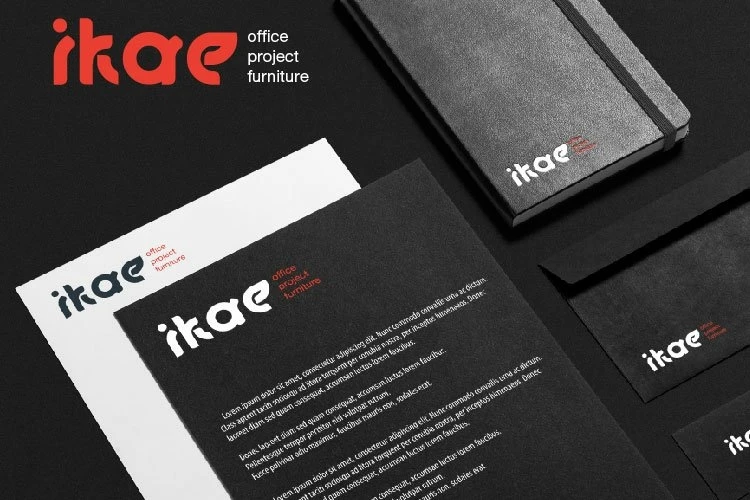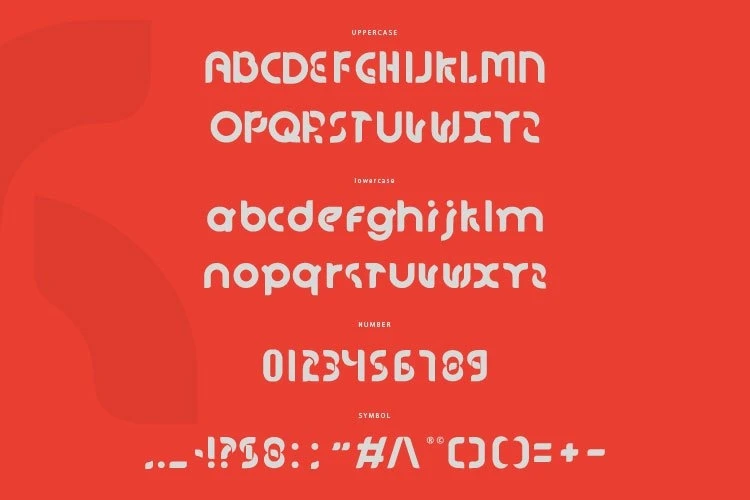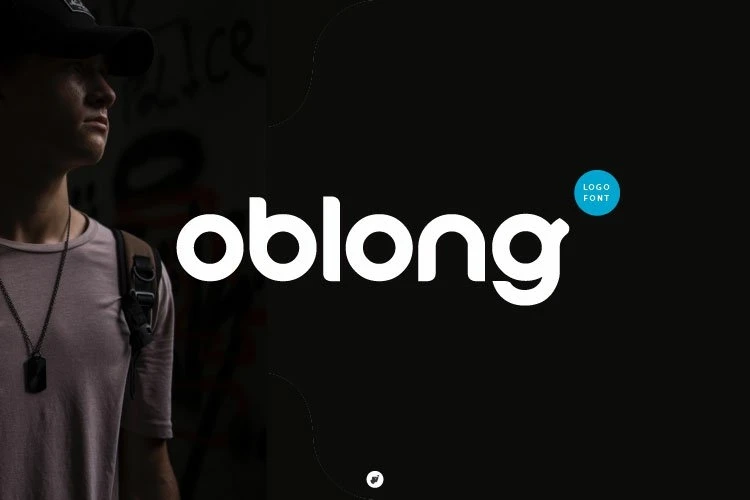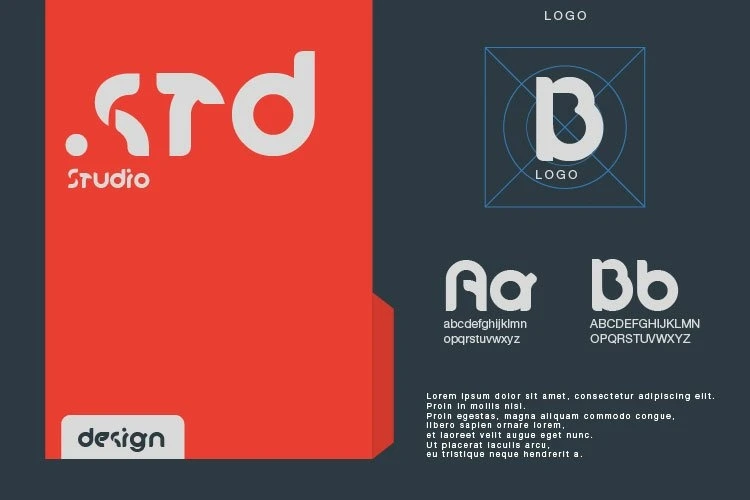
oblong is a decorative sans serif typeface with brings science fiction style, modern and minimalist. It can appropriate for many logos, headlines, and titles.